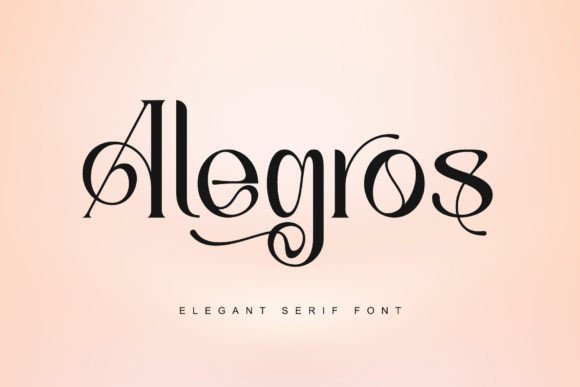
The Designer’s Delight: Unpacking the Elegance of Alegros Font
I’ll never forget the time I was working on a branding project for a luxury client, and I was stuck on finding the perfect font. The client wanted something elegant, sophisticated, and versatile. I scoured through countless font libraries, but nothing seemed to fit the bill. That was until I stumbled upon Alegros Font. ✨ It was love at first sight! The clean lines, the elegant serifs, and the incredible versatility – it was exactly what I needed. In this article, I’ll share my experience with Alegros Font, its features, and how to make the most of it in your designs.
Alegros Font: A Comprehensive Review
• ✨ Stylish and Elegant: Alegros Font boasts a sleek, modern design with a sophisticated touch.
• ✅ Versatile: Its clean and neat style makes it suitable for a wide range of designs, from luxury branding to elegant stationery.
• 🔍 Feature-Rich: Alegros Font comes with alternates, ligatures, and PUA encoding, giving you complete control over your typography.
While Alegros Font is an excellent choice, there are a few things to keep in mind: 🤔
• ⚠️ Learning Curve: With so many features and options, it might take some time to get familiar with the font’s capabilities.
• ⚠️ Pairing Challenges: As with any elegant font, finding the perfect pairing can be tricky. Experiment with different combinations to find the perfect match.
The Story Behind Alegros Font
Alegros Font was designed with the intention of creating a versatile, elegant typeface that would cater to a wide range of design needs. The designer aimed to craft a font that would exude sophistication and luxury, while still being approachable and clean. 💡
Q: Is Alegros Font suitable for body text?
A: While Alegros Font is elegant and refined, it may not be the best choice for extensive body text. Consider pairing it with a complementary font for optimal readability.